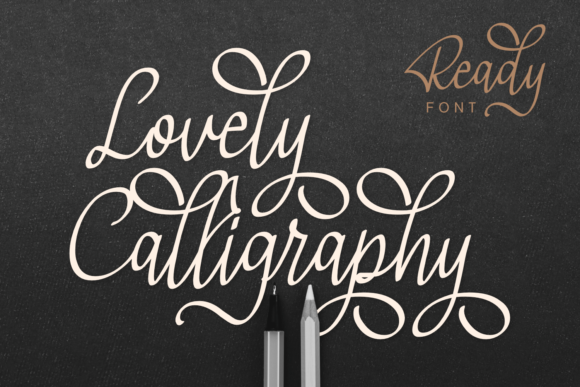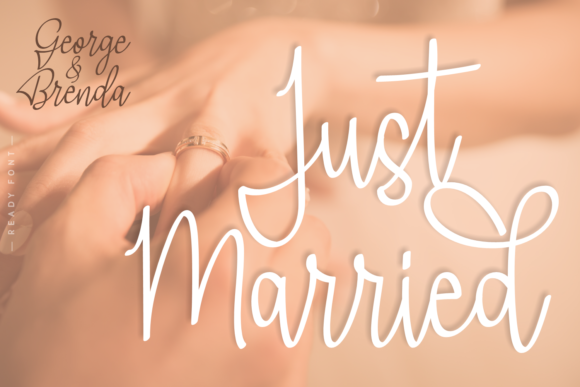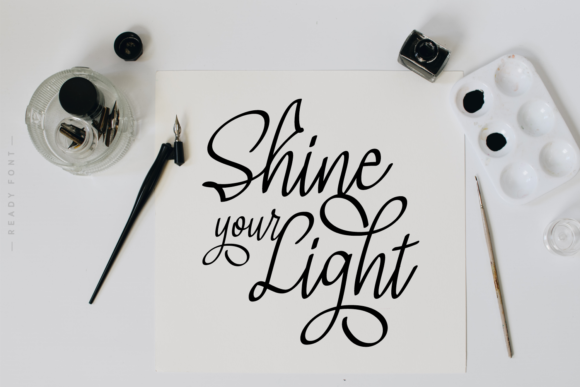
About Ready Font
Ready is an elegant calligraphy font, available for you in Regular and Italic versions. This beautiful font is perfect for personal branding, logos, covers, save-the-date invitations, wedding cards, valentine cards, quotes, etc.